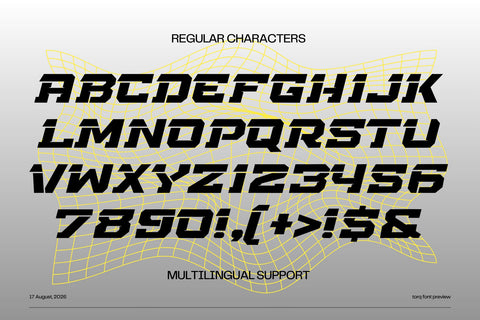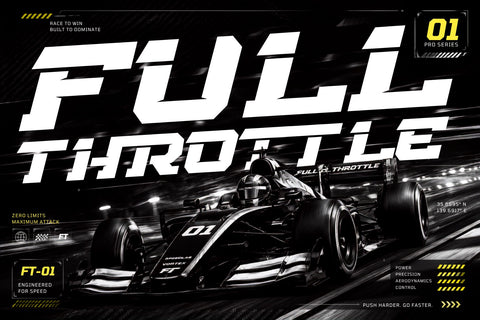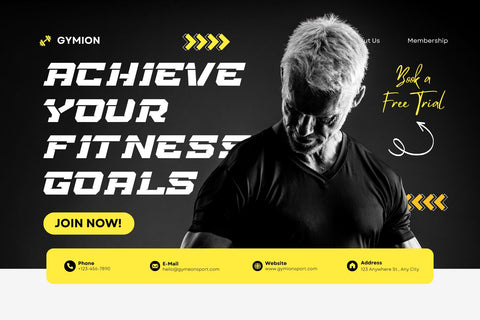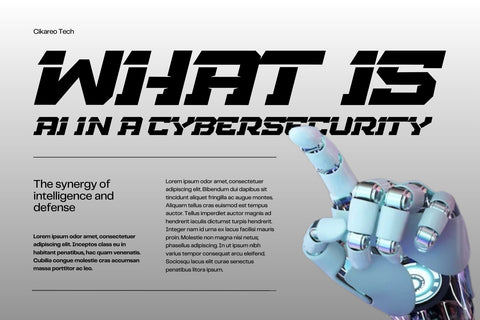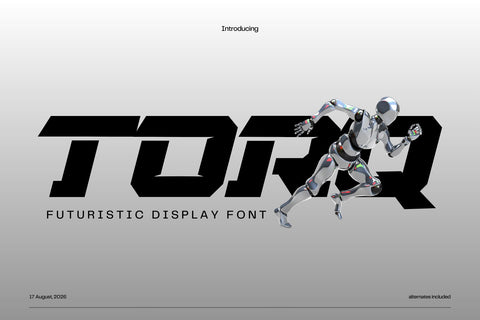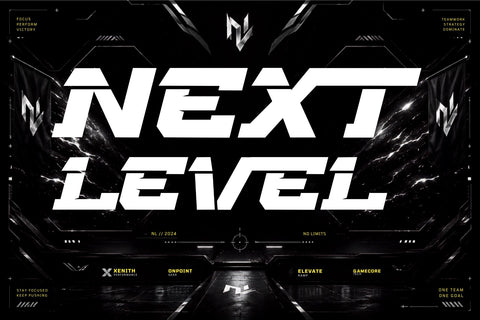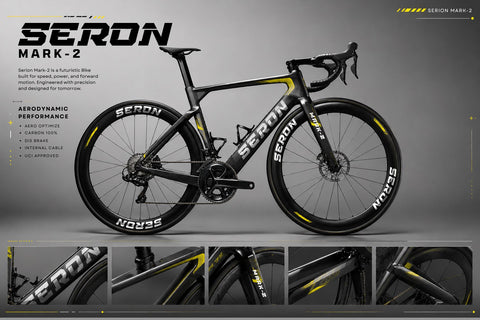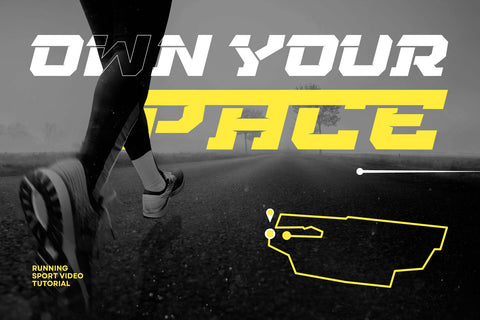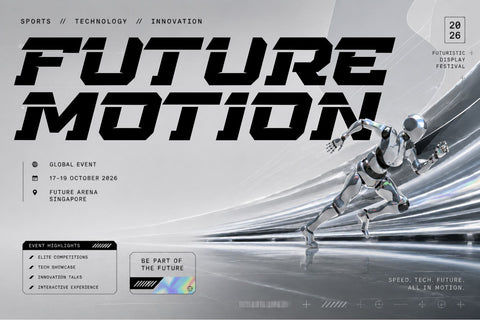
Torq - Futuristic Sport Display Font
TORQ is a futuristic sport display font built for speed, impact, and high-energy visual identities. Its bold, angular construction combines racing attitude with a sleek sci-fi edge, making headlines feel fast, powerful, and modern. Designed for posters, sports branding, esports graphics, automotive campaigns, tech visuals, event identities, gaming artwork, apparel, and social media designs, TORQ brings a distinctive performance-driven character to typography.
The family includes uppercase letters, numbers, punctuation, multilingual support, and stylistic alternates for extra creative flexibility. Use alternate characters to create custom wordmarks, dynamic compositions, and varied display treatments while keeping the signature TORQ aesthetic.